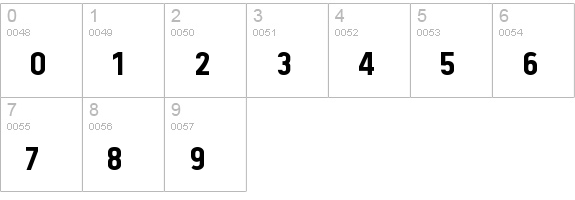
Tolyer Regular no.2 is the standard, neutral variant in the Tolyer typeface family \xE2\x80\x94 well suited to general body text, paragraphs, and standard typographic work.
Tolyer Regular no.2 font is a timeless and elegant typeface that exudes sophistication and style. Its clean lines and classic design make it suitable for a wide range of projects, from branding to editorial design. This versatile font is perfect for creating eye-catching headlines, elegant invitations, and stunning logos. What makes Tolyer Regular no.2 font even more appealing is that it is available for free download at FontsMarket.com. This means that you can easily access and use this beautiful font in your projects without any cost. Don't miss out on this opportunity to enhance your designs with the timeless beauty of Tolyer Regular no.2 font. Download it today and elevate your creative work to new heights.